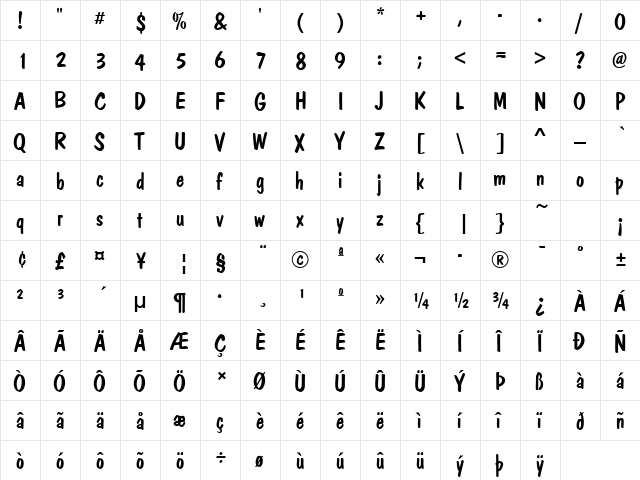
DomCasualD Regular Font Preview
DomCasualD Regular
DomCasualD Regular Font Details
Design Context for DomCasualD Typeface
DomCasualD is a composed and adaptable typeface that performs quietly and consistently across a wide range of design contexts.